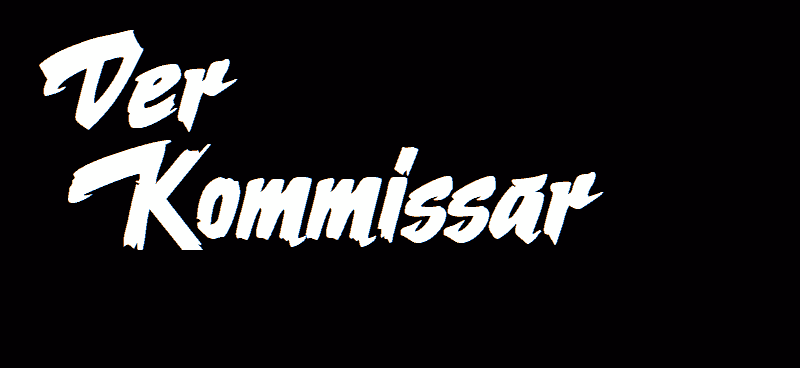
This typeface is built on the title graphics of German TV Police Series "Der Kommissar" of the 1960 and 70s. Missing characters were extrapolated. Multi language support. Version 2.00 |